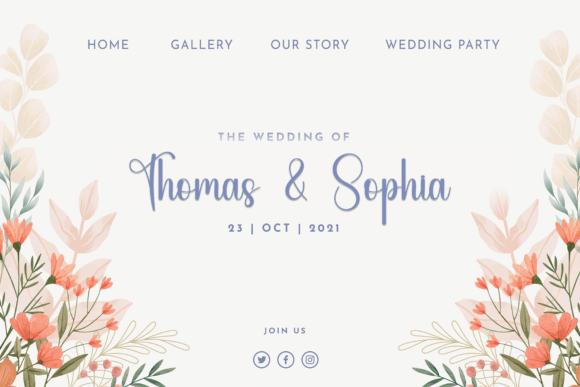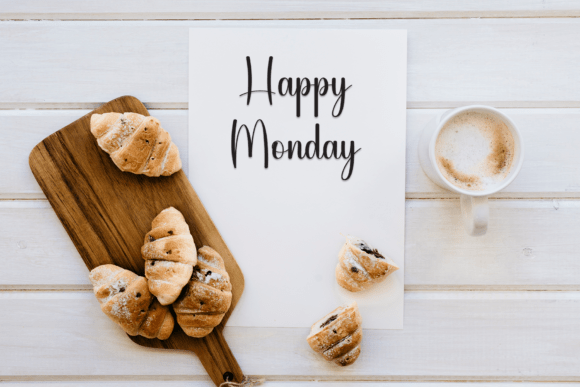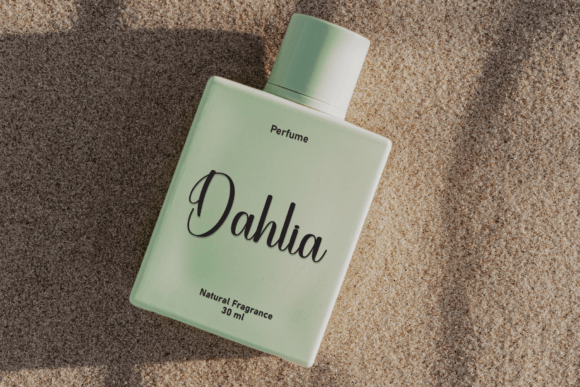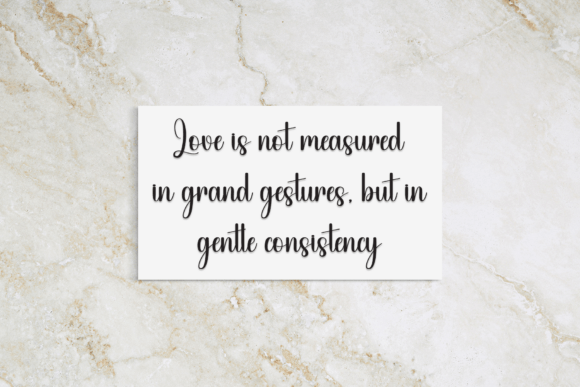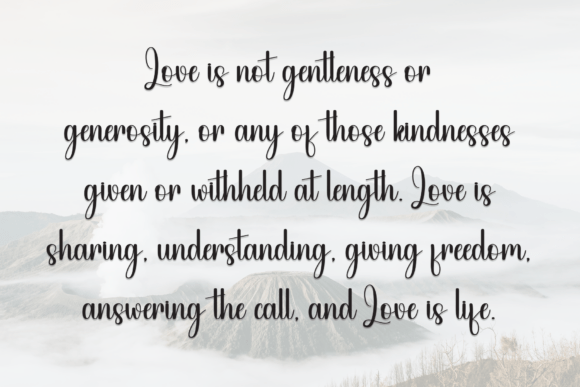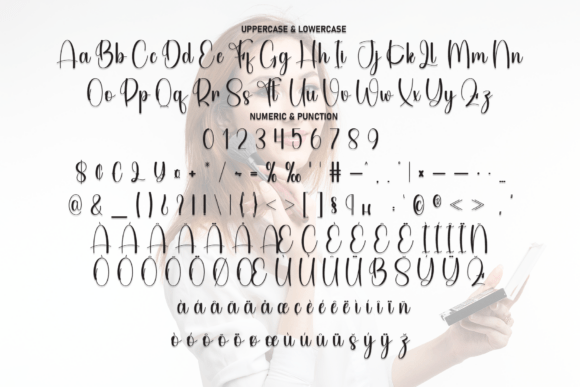
Introducing Beauty Font: The Playful Handwritten Display Font
Are you looking for a font that can add a touch of whimsy and playfulness to your designs? Look no further than Beauty Font, a charmingly playful handwritten display font that effortlessly embodies spontaneity and warmth. With its delightful and friendly aesthetics, this font infuses text layouts with a fun-filled vibe that’s perfect for a variety of design projects.
The Perfect Font for Wedding Invitations and Cards
Beauty Font is an ideal choice for crafting wedding invitations, cards, and other special occasion designs. Its playful and whimsical nature adds a touch of romance and elegance to any text layout, making it perfect for couples looking for a unique and personalized way to share their special day with loved ones. Whether you’re designing a formal wedding invitation or a casual save-the-date card, Beauty Font is sure to impress.
Bringing Joy and Creativity to Your Designs
Beauty Font is more than just a font – it’s a design experience. With its endearing features and quirky charm, it instills a sense of joy and creativity in your designs. This font is perfect for designers and crafters who want to add a personal touch to their work and create something truly special. Whether you’re designing a logo, brochure, or social media graphic, Beauty Font is sure to bring a smile to your face and inspire your creativity.
The Versatility of Beauty Font
One of the best things about Beauty Font is its versatility. This typeface adeptly balances style and quirkiness, making it perfect for a wide range of design projects. From formal events to casual designs, Beauty Font can be used to create a variety of different looks and moods. Its friendly and approachable nature makes it perfect for designs that need to connect with the audience on a personal level.
Key Features of Beauty Font
- Playful and whimsical design: Beauty Font features a charmingly playful handwritten design that’s perfect for adding a touch of whimsy to your designs.
- Delightful and friendly aesthetics: This font has a delightful and friendly aesthetic that’s sure to bring a smile to your face.
- Perfect for wedding invitations and cards: Beauty Font is an ideal choice for crafting wedding invitations, cards, and other special occasion designs.
- Versatile and adaptable: This font can be used for a wide range of design projects, from formal events to casual designs.
- Easy to read and understand: Despite its playful nature, Beauty Font is easy to read and understand, making it perfect for designs that need to communicate a message.
Tips for Using Beauty Font
Here are a few tips for using Beauty Font in your designs:
- Use it for headlines and titles: Beauty Font is perfect for headlines and titles, where its playful and whimsical nature can really shine.
- Pair it with a simple font: For body text, pair Beauty Font with a simple font to create a nice contrast and make your design stand out.
- Experiment with colors and textures: Beauty Font looks great in a variety of colors and textures, so don’t be afraid to experiment and find the perfect combination for your design.
Beauty Font is a charmingly playful handwritten display font that’s perfect for designers and crafters who want to add a touch of whimsy and playfulness to their designs. With its delightful and friendly aesthetics, this font infuses text layouts with a fun-filled vibe that’s sure to bring a smile to your face. Whether you’re designing a wedding invitation, card, or any other design project, Beauty Font is sure to inspire your creativity and bring joy to your designs.